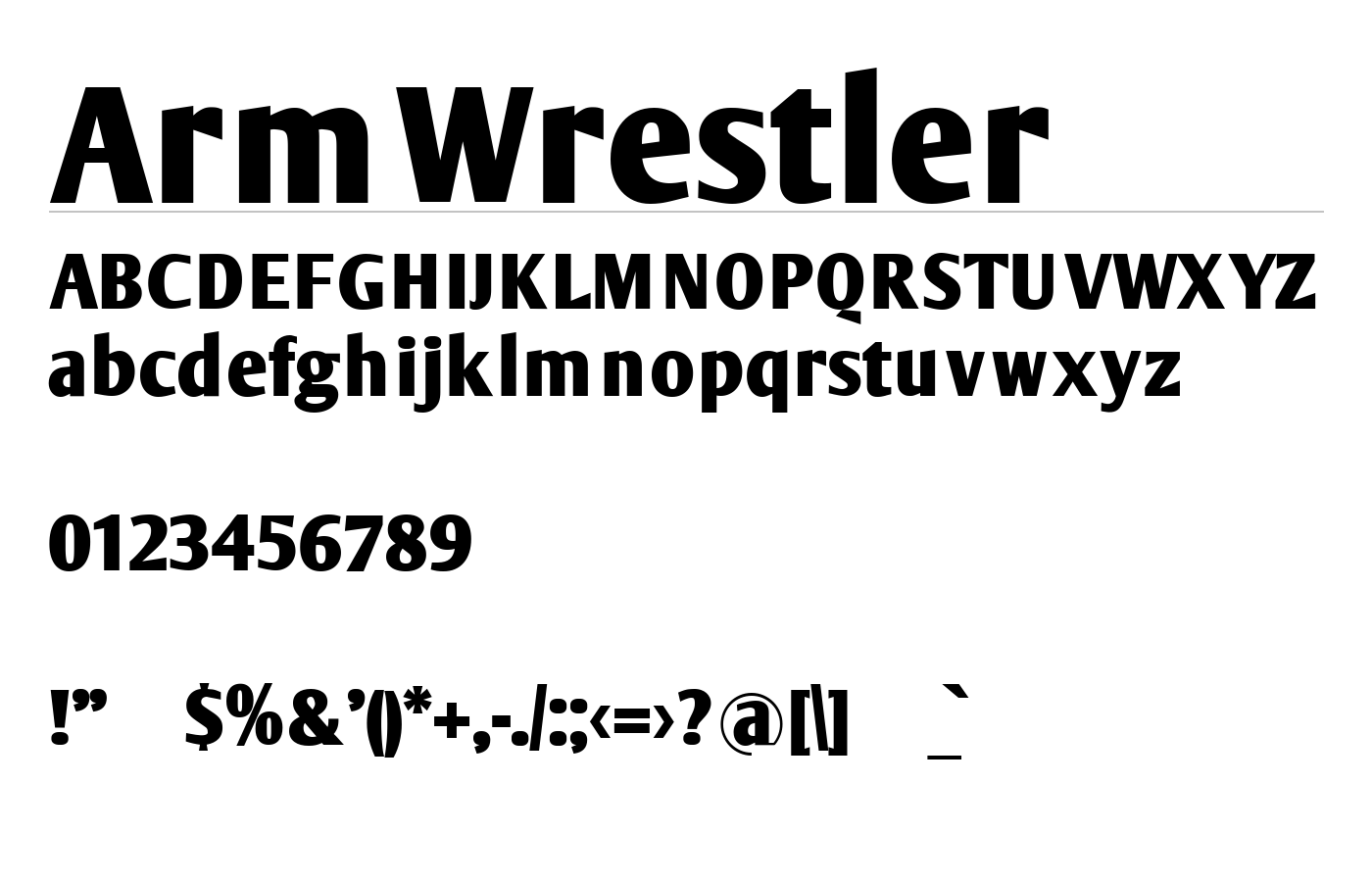
ArmWrestler is a bold, condensed sans serif font with a strong, athletic feel. Its high weight and tight spacing create an impactful and confident presence, making it ideal for headlines, logos, and branding projects that demand attention and power. This font works especially well for sports, fitness, or assertive design themes where a modern and vigorous tone is needed.
ArmWrestler Font